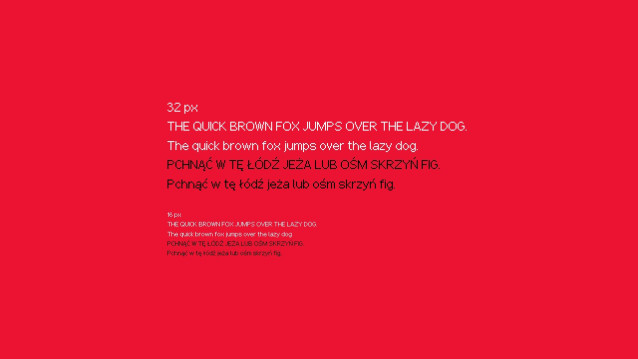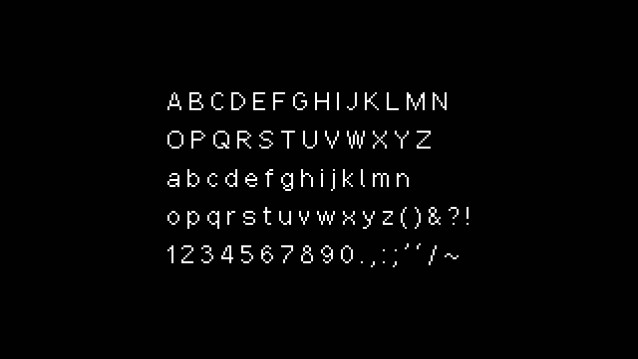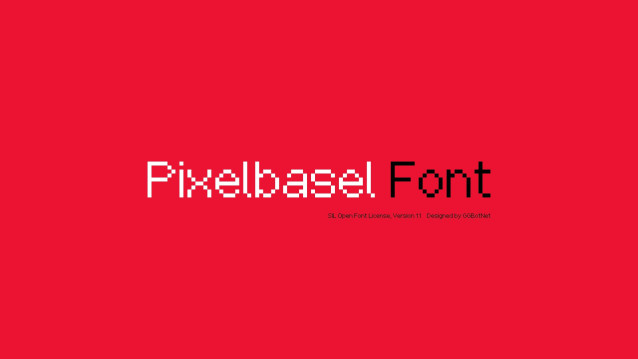
Pixelbasel Font
Pixelbasel Font is a vintage display typeface, They pair well together and look great on games with pixel or vintage style, pixel art, movie title, eBook, t-shirt gaming, poster, game text, cover, logo, branding, social media post, advertising and many more!.